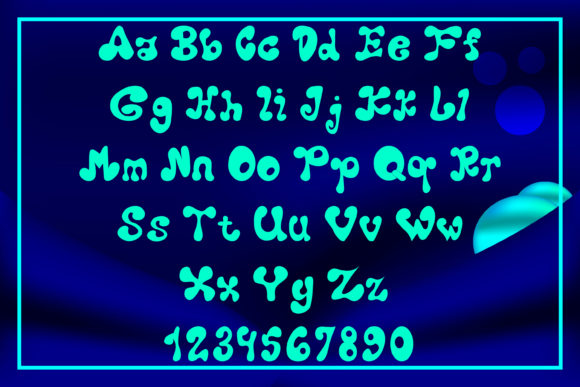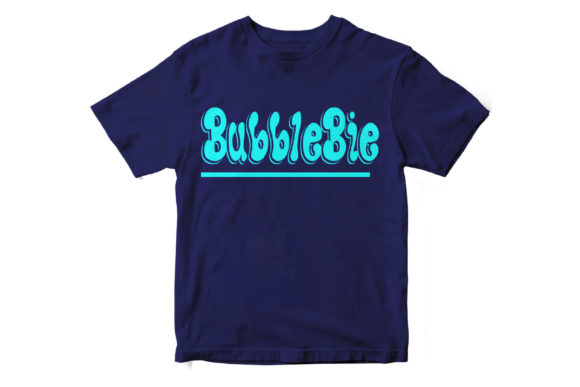
Get Ready to Pop with Joy: Introducing Bubblebie Font
Have you ever been working on a design project, and just when you think it’s missing that special something, you stumble upon the perfect font to bring it all together? That’s exactly what happened to us when we discovered the delightful Bubblebie Font. Its playful, whimsical style is sure to add an instant dose of joy to any creative project.
Designed to add an incredibly joyful touch to your designs, Bubblebie Font is a must-have for designers looking to add a little extra magic to their work. Whether you’re working on a children’s book, a social media campaign, or a product packaging design, this font is sure to make your creations stand out from the crowd.
Bubblebie Font Key Features
- Unique Characteristics: The font features a unique, playful design with rounded shapes and a soft, bubbly feel, perfect for creating a friendly and approachable atmosphere in designs.
- Language Support: Bubblebie Font supports a wide range of languages, including Latin, Cyrillic, and Greek scripts, making it a versatile choice for multilingual designs.
- Kerning and Ligatures: The font includes advanced kerning and ligature features, ensuring smooth text rendering and a professional appearance in designs.
Bubblebie Font Review
Overall, I think Bubblebie Font is a unique and playful choice for designers looking for something a little out of the ordinary. ✨ The font’s rounded edges and bubbly shape give it a friendly and approachable feel that’s perfect for kids’ products, social media, or any other project that requires a lighthearted tone.
The font is also incredibly versatile, with a wide range of weights and styles to choose from. ✨ This makes it easy to use in a variety of contexts, from headlines to body text. I also appreciate the font’s high level of customization, allowing designers to tweak the spacing and size to fit their specific needs.
What Doesn’t Work
While Bubblebie Font has many strengths, there are a few limitations that prevent it from being a top choice for every designer. ⚠️ For one, the font can be a bit difficult to read at very small sizes. I’ve found that it’s best to use it in sizes 14pt and above to ensure optimal legibility.
- Difficult to read at very small sizes
- Lack of support for certain languages
- Not ideal for formal or professional projects
Overall, I think Bubblebie Font is a great choice for designers looking for a fun and playful font. While it may have some limitations, its unique style and high level of customization make it a great option for a wide range of projects.
Bubblebie Font is ideal for creating playful, whimsical designs, such as children’s book illustrations, party invitations, and social media graphics. To get the most out of the font, experiment with different font sizes, colors, and styles to create a unique and eye-catching design. You can also use the font in combination with other design elements, such as shapes and vectors, to create a more complex and interesting design.